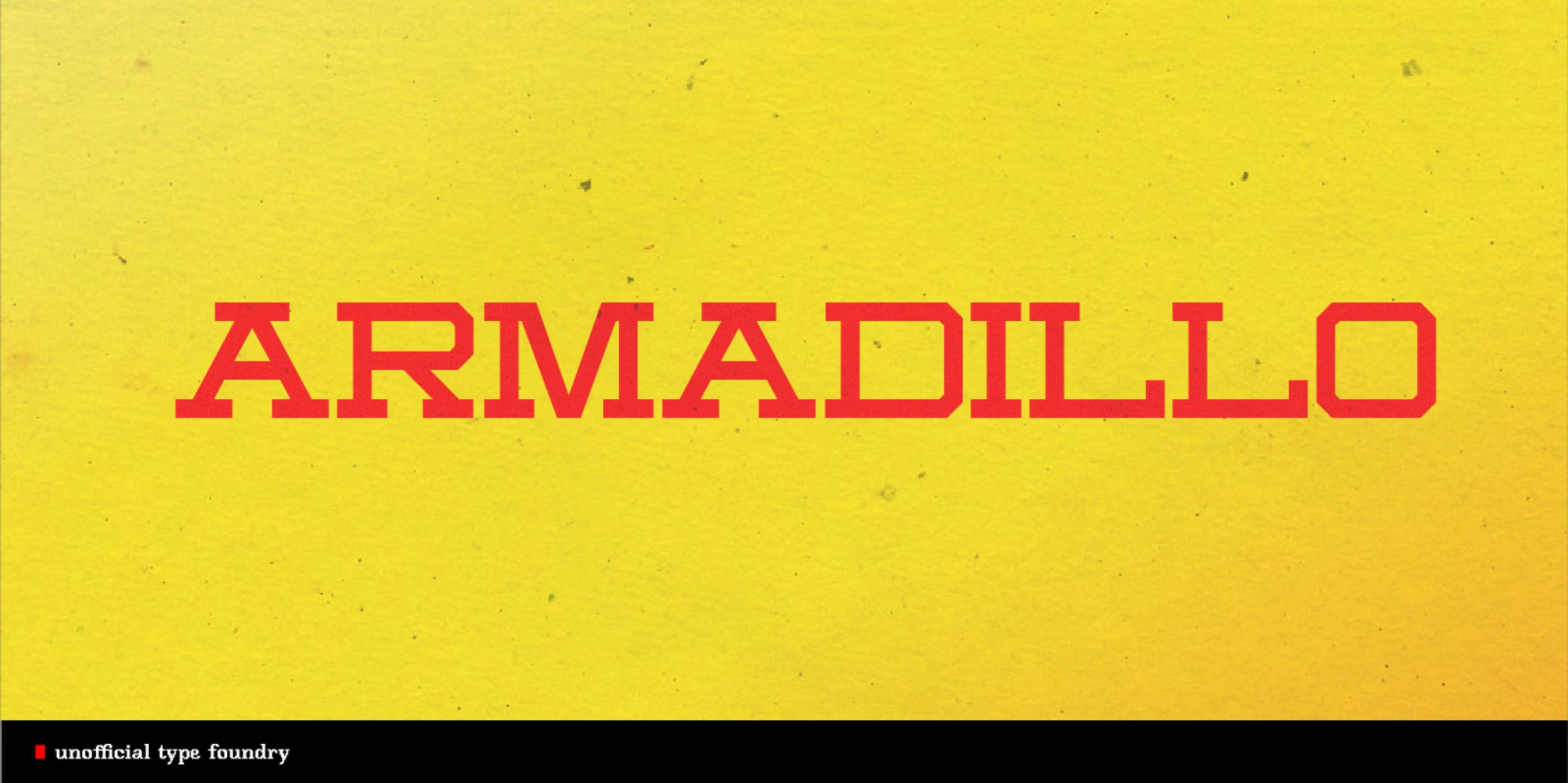
Armadillo – Bold Slab Serif Font
Armadillo – Bold Slab Serif Font is a professionally designed typeface that delivers clarity, structure, and consistent performance across various design applications. Armadillo is a bold slab-serif with a rugged, Western feel. Strong, blocky shapes and sturdy serifs give it a confident, vintage look. Perfect for headlines, posters, or branding that needs a touch of frontier spirit.